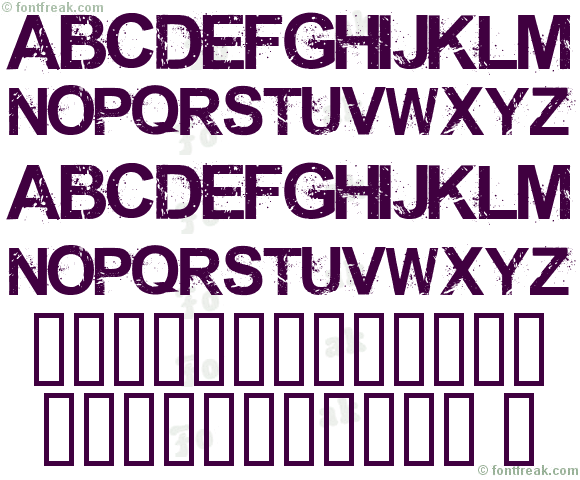
Shrapnel
Shrapnel — Character Map
About Shrapnel
Shrapnel, designed by Chris Vile, is a striking display font that falls into the category of decorative typefaces. With its bold, distressed letterforms, Shrapnel captures attention and adds a unique character to any design. The font showcases a rugged aesthetic, characterized by uneven stroke weights and a grungy texture that gives it an organic feel. The spacing between the letters is tight, which enhances its impact and makes it ideal for headlines and prominent text.
This versatile typeface is perfect for a variety of creative projects. It shines in applications such as movie posters, where its dramatic presence can evoke emotion and intrigue. Additionally, Shrapnel works well for album covers, giving a raw edge to music branding. It can also be effectively used in advertising campaigns, especially for products targeting a youthful and edgy audience. Small business owners looking to create a memorable logo or signage will find this font to be an excellent choice, as it conveys a sense of individuality and creativity.
The target audience for Shrapnel includes graphic designers, content creators, and small business owners who seek to make a bold statement with their typography. Its unique visual characteristics and strong personality make it a go-to option for anyone wanting to stand out in a crowded marketplace.